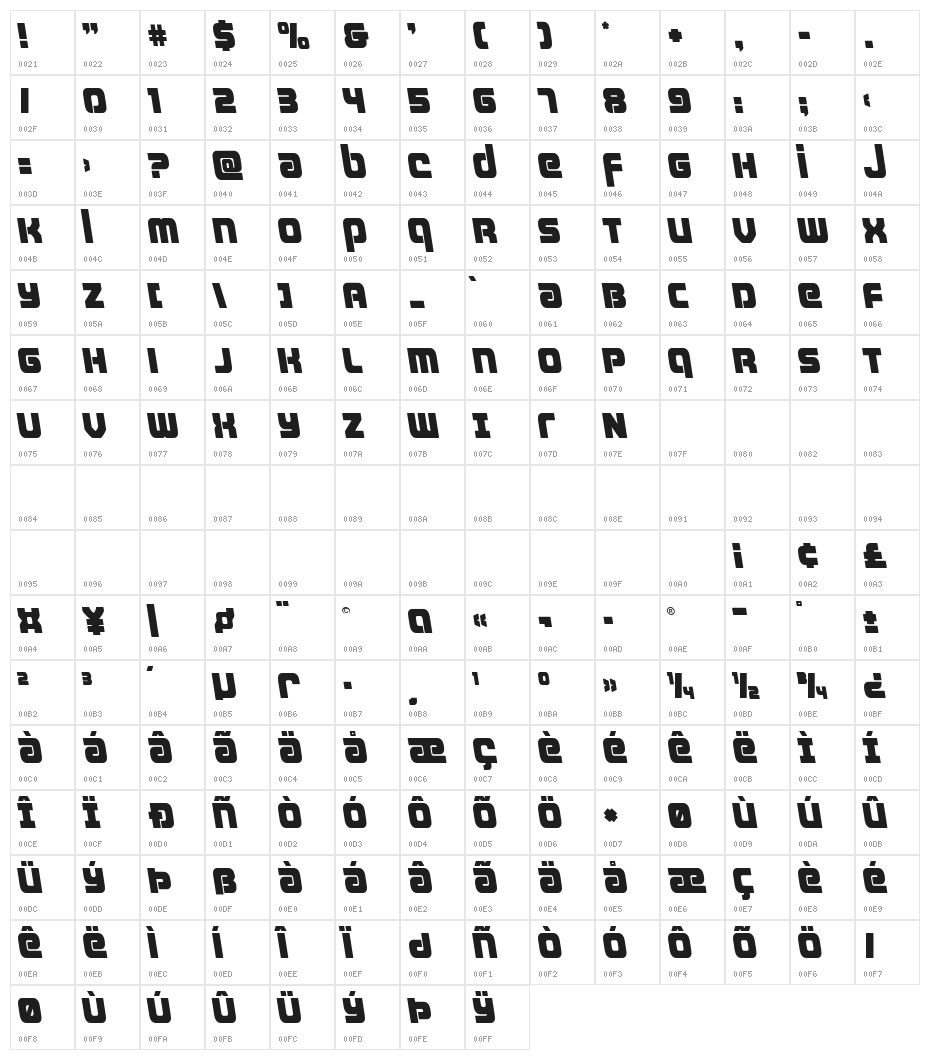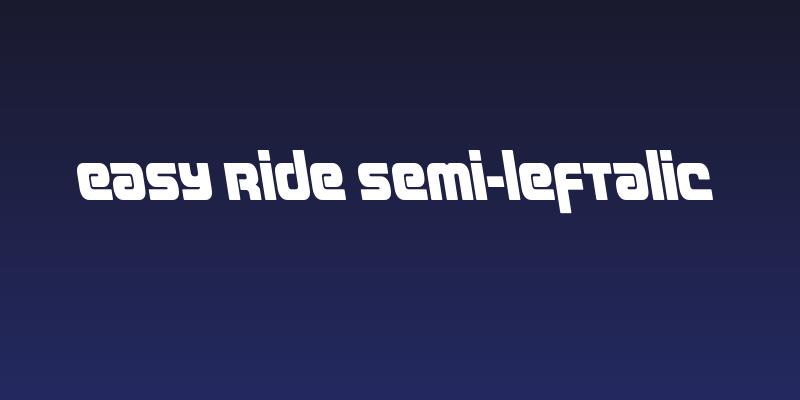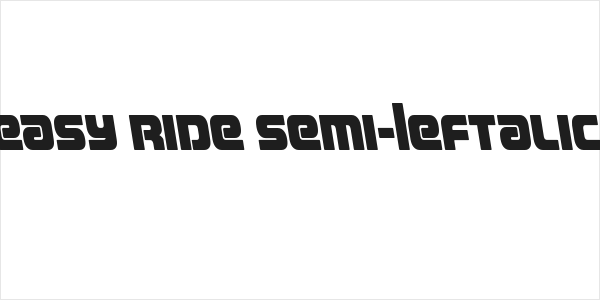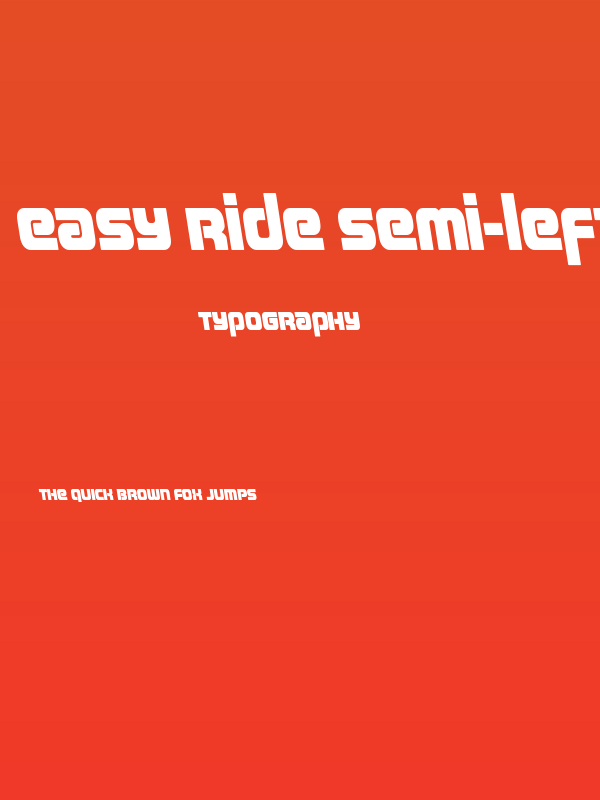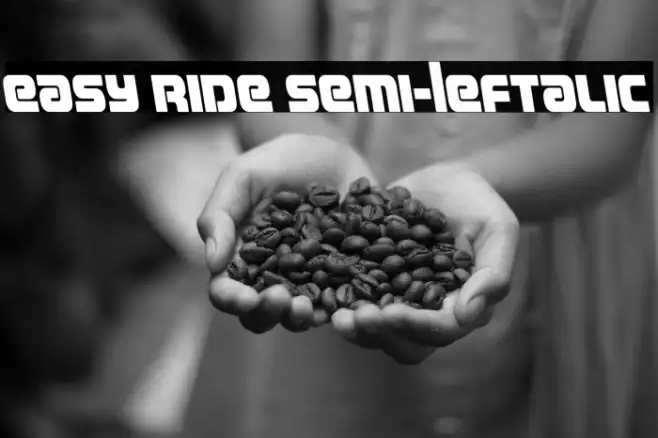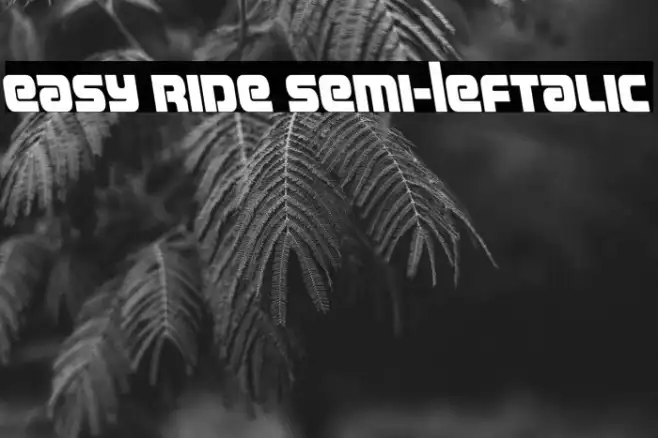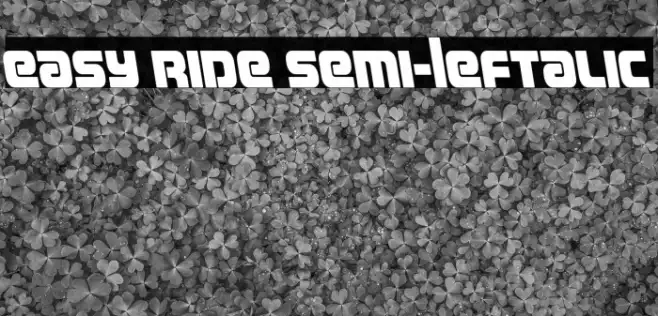
Easy Ride Semi-Leftalic Font
Easy Ride Semi-Leftalic Description
This font features a bold, geometric style with a modern flair. The characters are slightly slanted, giving a dynamic and forward-moving appearance. The design incorporates thick strokes and rounded edges, creating a sense of robustness and stability. The uppercase and lowercase letters maintain a consistent style, with a unique angularity that adds character. Numbers and special characters follow the same bold and structured aesthetic, making the font versatile for various applications. The overall look is clean yet impactful, suitable for making strong visual statements.
EASY-RIDE-SEMI-LEFTALIC UPPERCASE
EASY-RIDE-SEMI-LEFTALIC LOWERCASE
EASY-RIDE-SEMI-LEFTALIC OTHER CHARS
| Proposed Projects | Ideal for branding, sports team logos, posters, and dynamic web design. |